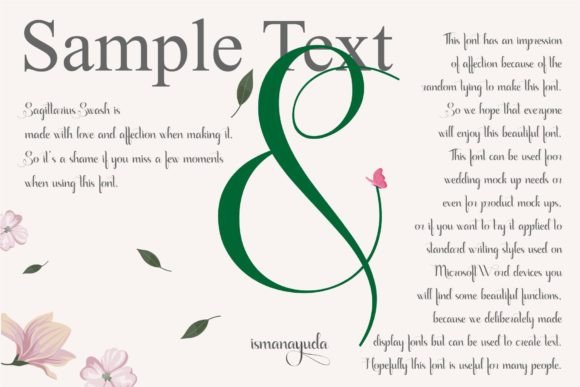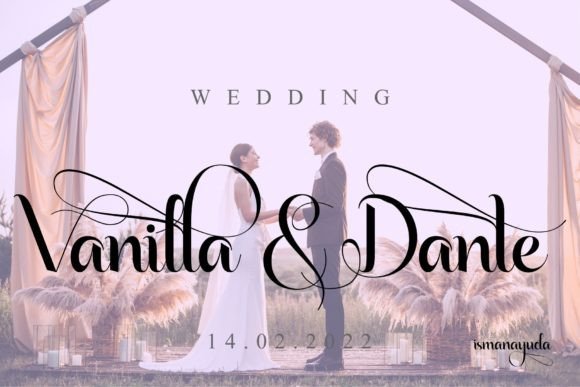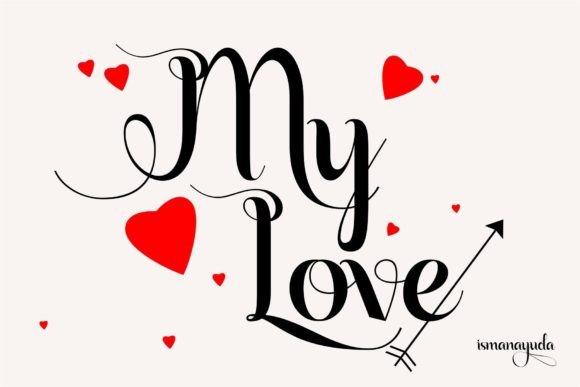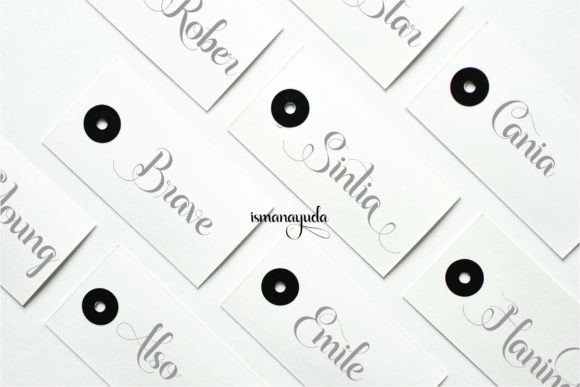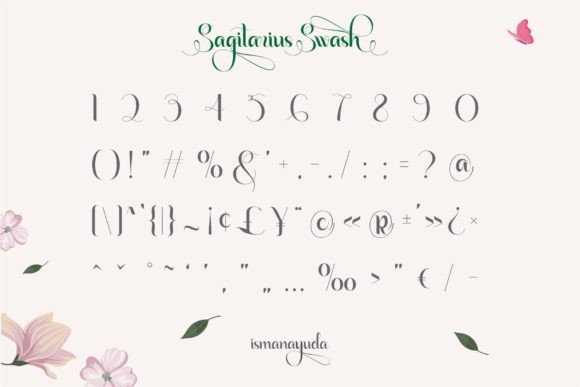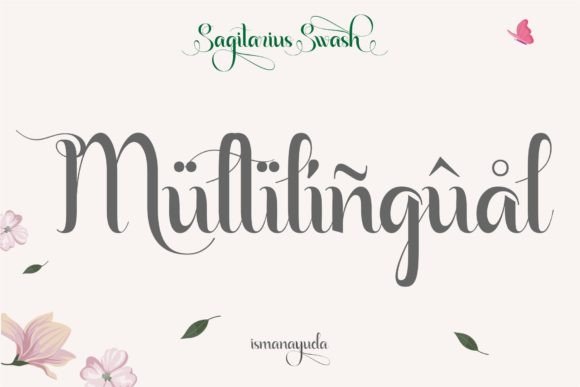
Introduction to Sagitarius Swash Font Font
Fonts play a crucial role in design, and the Sagitarius Swash Font font is a typeface that brings both character and versatility to any project. Whether you’re working on a branding project, a website, or a print design, the Sagitarius Swash Font font offers a unique style that can elevate your work.
Sagittarius Swash is our first font featuring the flow of original handwritten fonts.
This is the first font we’ve created with this stream Sagittarius Swash is suitable for use for creator content needs, it can also be used for wedding posters or for cafe displays.
Key Features of Sagitarius Swash Font Font
Why Choose Sagitarius Swash Font Font?
The Sagitarius Swash Font font is more than just a typeface – it’s a design tool that helps you communicate your message with style and clarity. Its unique character set and versatile design make it suitable for a wide range of applications, from elegant invitations to bold headlines.
With its carefully crafted letterforms and balanced proportions, the Sagitarius Swash Font font ensures readability and visual appeal across all mediums.
What makes Sagitarius Swash Font font special?
The Sagitarius Swash Font font stands out with its unique design, exceptional readability, and versatility across various design applications.